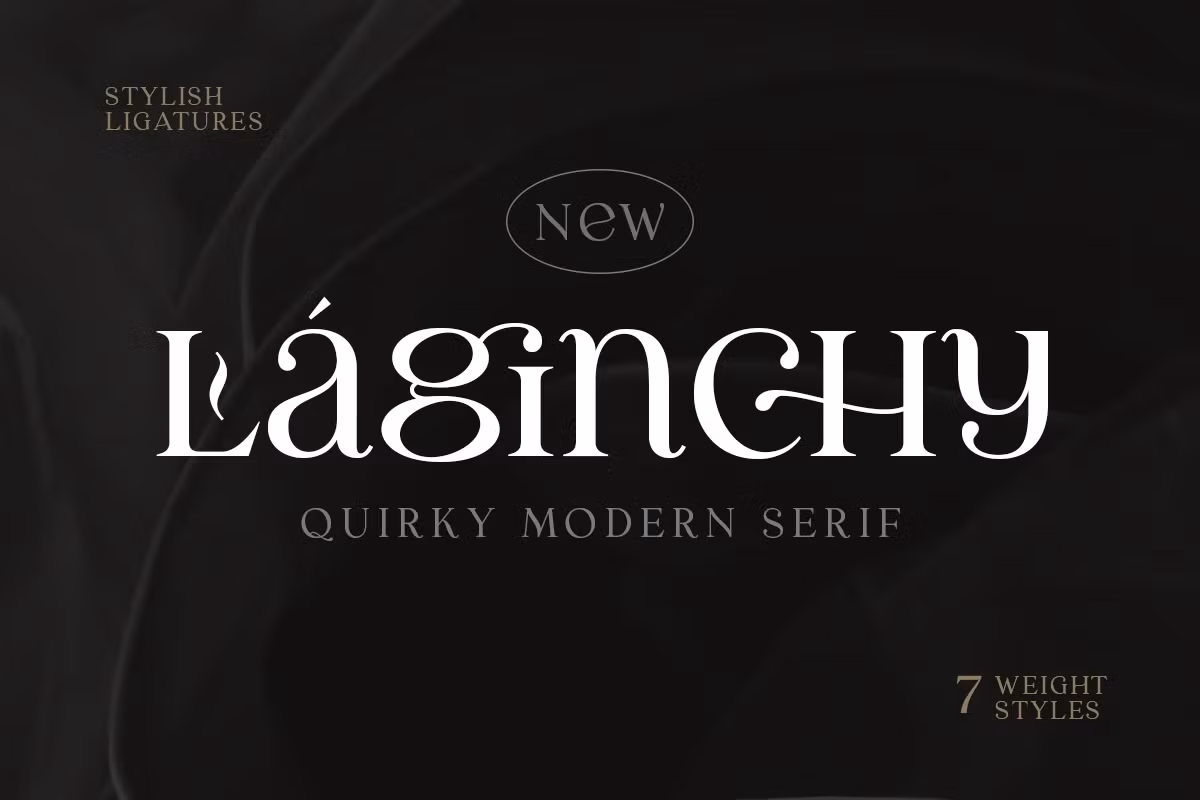
Laginchy - Quirky Serif Free Download
Laginchy - Quirky Serif Font Free Download
Laginchy - Quirky Serif Font Free Download is a fun and expressive typeface designed to add personality and character to your designs. With its unique serifs and playful letterforms, this font is perfect for creating attention-grabbing logos, posters, branding, and social media content. Its quirky, yet elegant style makes it ideal for creative projects that require a blend of sophistication and individuality. Whether you’re working on a fashion brand, a fun event, or a vibrant marketing campaign, Laginchy - Quirky Serif Font Free Download allows you to explore its playful design in personal projects before purchasing a commercial license. Add a distinctive touch to your work with this beautifully crafted quirky serif font.